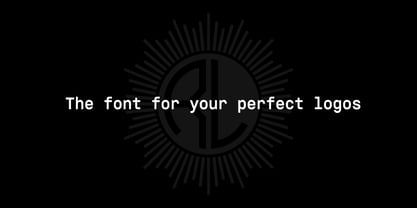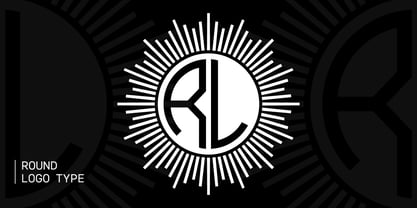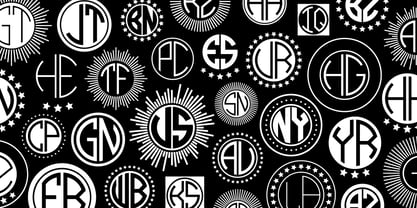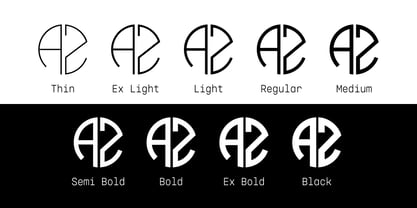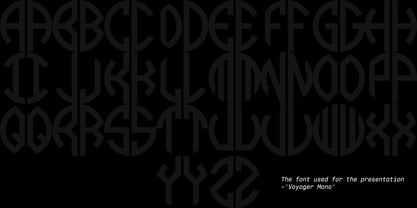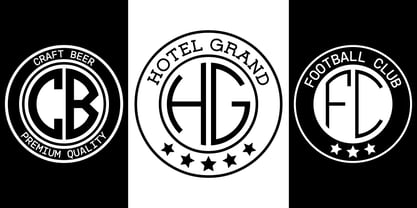
Round Logo Type
by Anton Kokoshka
The Round Logo Type Font Family was designed by Anton Kokoshka and published by Anton Kokoshka. Round Logo Type contains 20 styles and family package options.
Round Logo Type is a versatile geometric font designed to create unique round monograms with ease. It seamlessly connects letters, transforming them into a stylish circular logo that can be tailored for any purpose. With just one font file, you can craft personalized logos in no time! The font includes a variety of borders and decorative elements, offering endless possibilities for logos across different projects — from a football club to a hotel, brand, or personal emblem. With 9 weight variations, this font perfectly combines modern and classic design elements, making logo creation effortless and fast!
Round Logo Type
About Anton Kokoshka
This is a personal font studio operated by Anton Kokoshka, a ukrainian designer with extensive experience in the field of stock illustration. This is a young studio that started its journey at the end of 2021. Here you will find modern typefaces created with love to the art of typography, attention to details and desire to meet people's needs. High level of quality, usability and a fresh look at things are our main tenets.